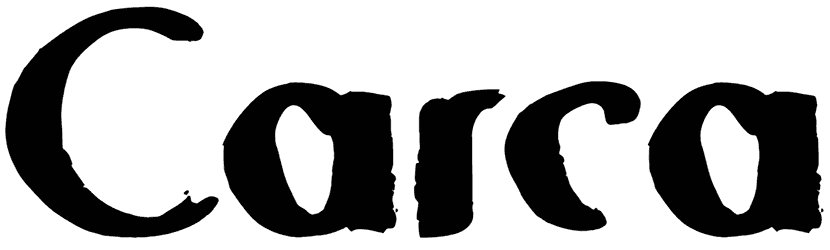
Carca Font
Conveying a friendly and devilish feeling in designing can happen through the treatment of an adventure font like Carca; its intimate and cool spirit makes it suitable to embellish in any creative movie titles, card design, posters, book covers, and other creative displays. Rest assured, with a complete alphabet set, put your utmost into bringing out your design.